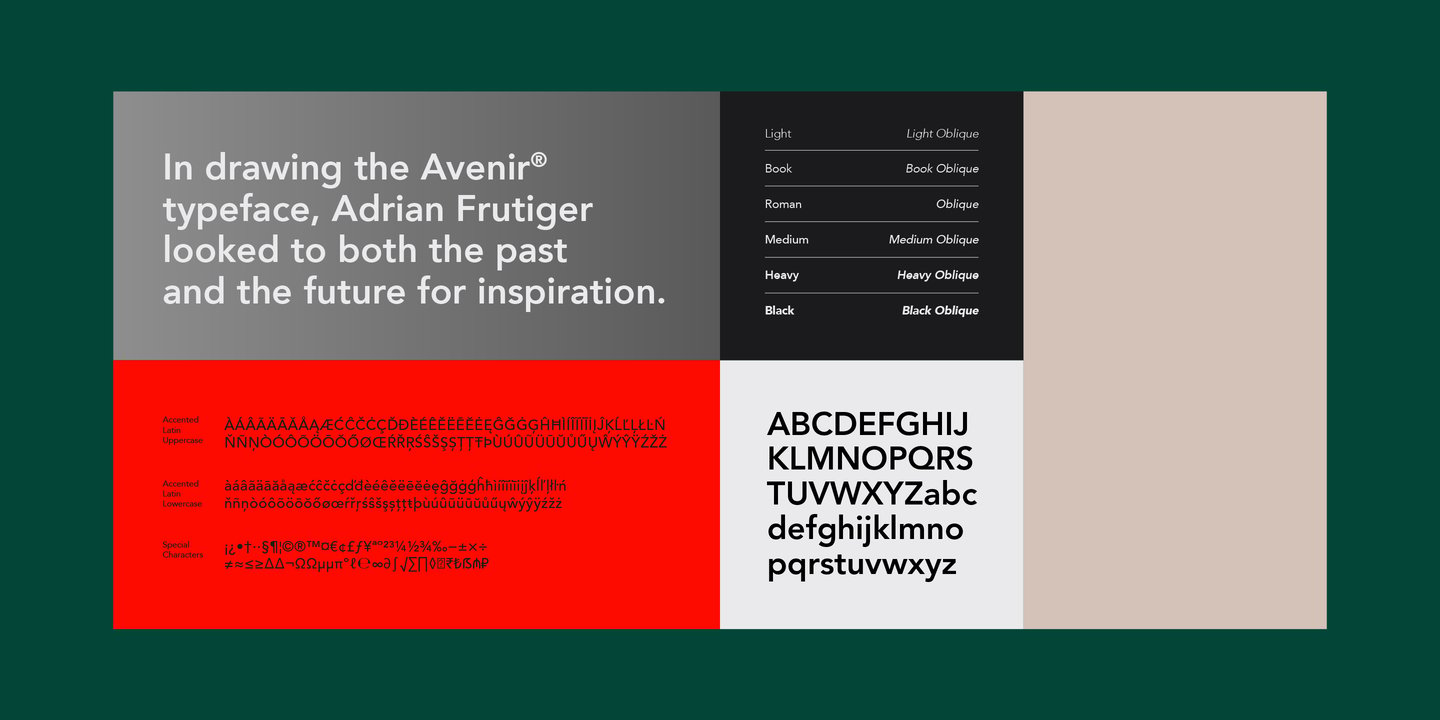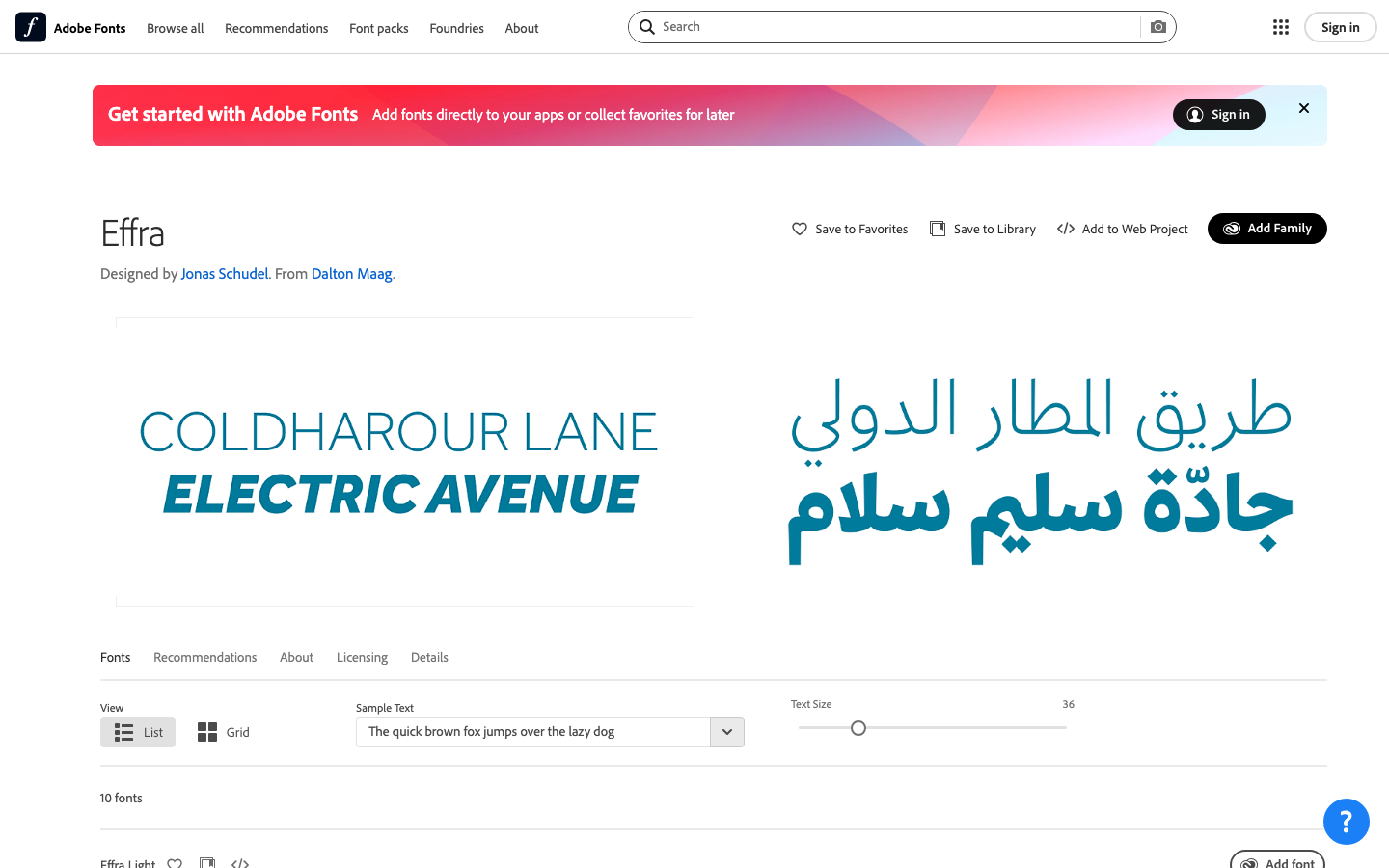
Avenir vs Effra
Avenir and Effra are both sans-serif typefaces sharing a geometric foundation. Where Avenir leans humanist, low contrast, Effra brings branding, minimal. Compare which suits your Corporate project.
Design overlap:33%
| Feature | Avenir | Effra |
| Language Support | latin, latin-extended, cyrillic, greek | latin, latin-extended, cyrillic, greek |
| Source | Linotype | Dalton Maag |
Recommended: Avenir
- humanist, low contrast design character
- Suited for Editorial and Mobile Apps
- From linotype
Consider: Effra
- branding, minimal design character
- Suited for Ui and Signage
- From dalton-maag